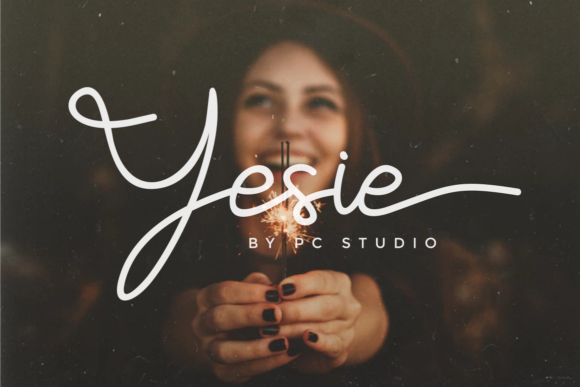
Yesie Script Font
Introducing Yesie Script Font, the captivating script that will unleash your creativity and make your designs stand out from the crowd. Its delicate monoline strokes and fluid cursive style exude elegance and sophistication, adding a touch of charm to every word it graces.
Immerse yourself in the world of Yesie Script, where your ideas take shape with effortless beauty. Its legibility ensures that your message is conveyed with crystal clarity, while its wide range of applications empowers you to explore endless possibilities.
From bold headlines that command attention to graceful invitations that evoke heartfelt emotions, Yesie Script is the ideal choice for designers seeking to create designs that captivate and inspire. Let its enchanting lines dance across your creations, leaving an unforgettable mark on the hearts of your audience.
Crafted with love and care, Yesie Script Font is a gift to designers, calligraphers, and creatives alike. Its versatility knows no bounds, making it the perfect companion for a multitude of projects, from personal branding to wedding invitations and beyond.
Elevate your designs to new heights with Yesie Script Font, the ultimate tool for expressing your individuality and leaving a lasting impression on the world. Embrace its timeless beauty and let your imagination soar!